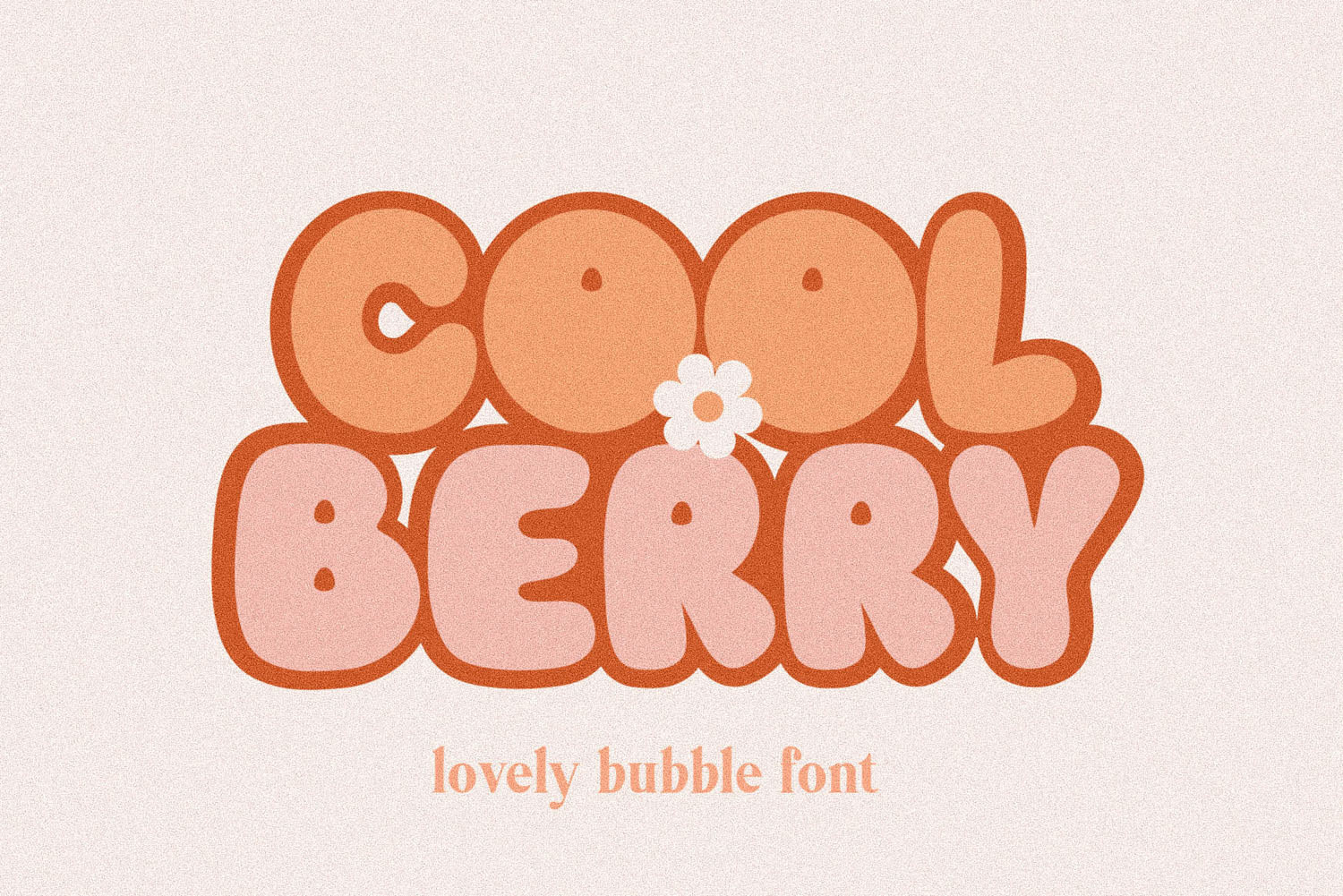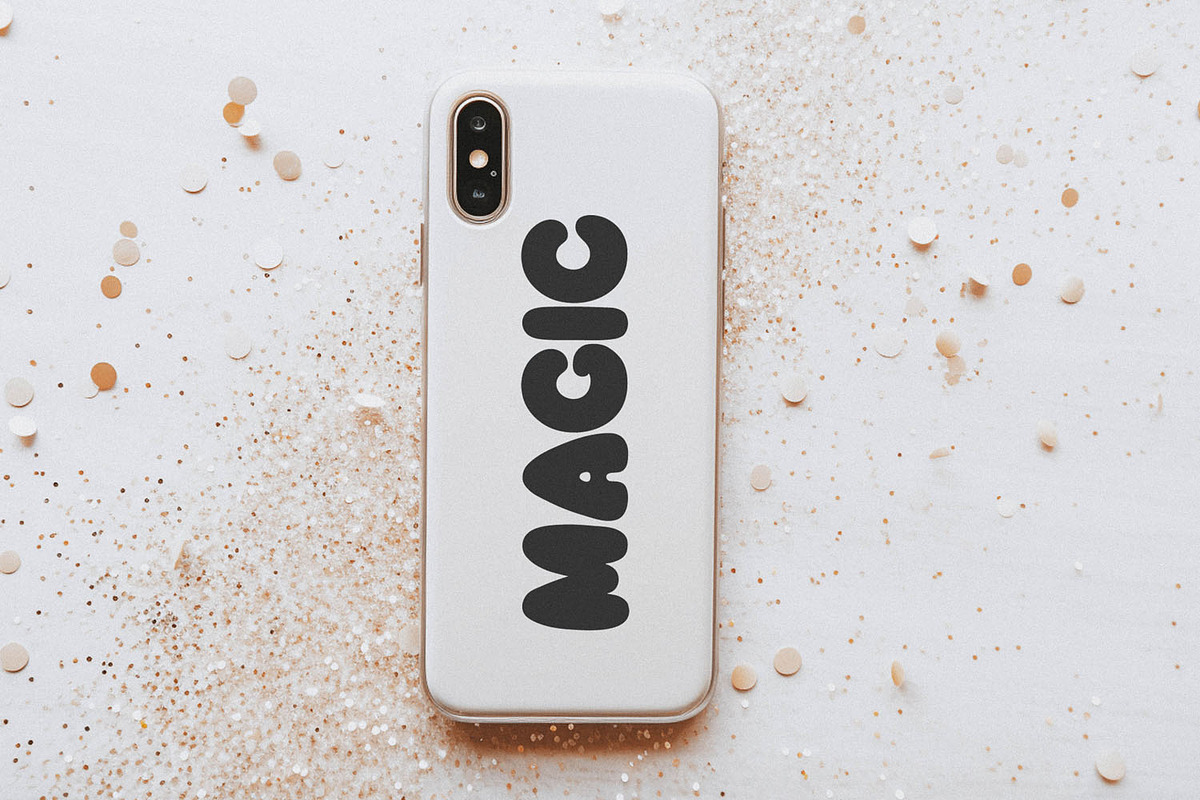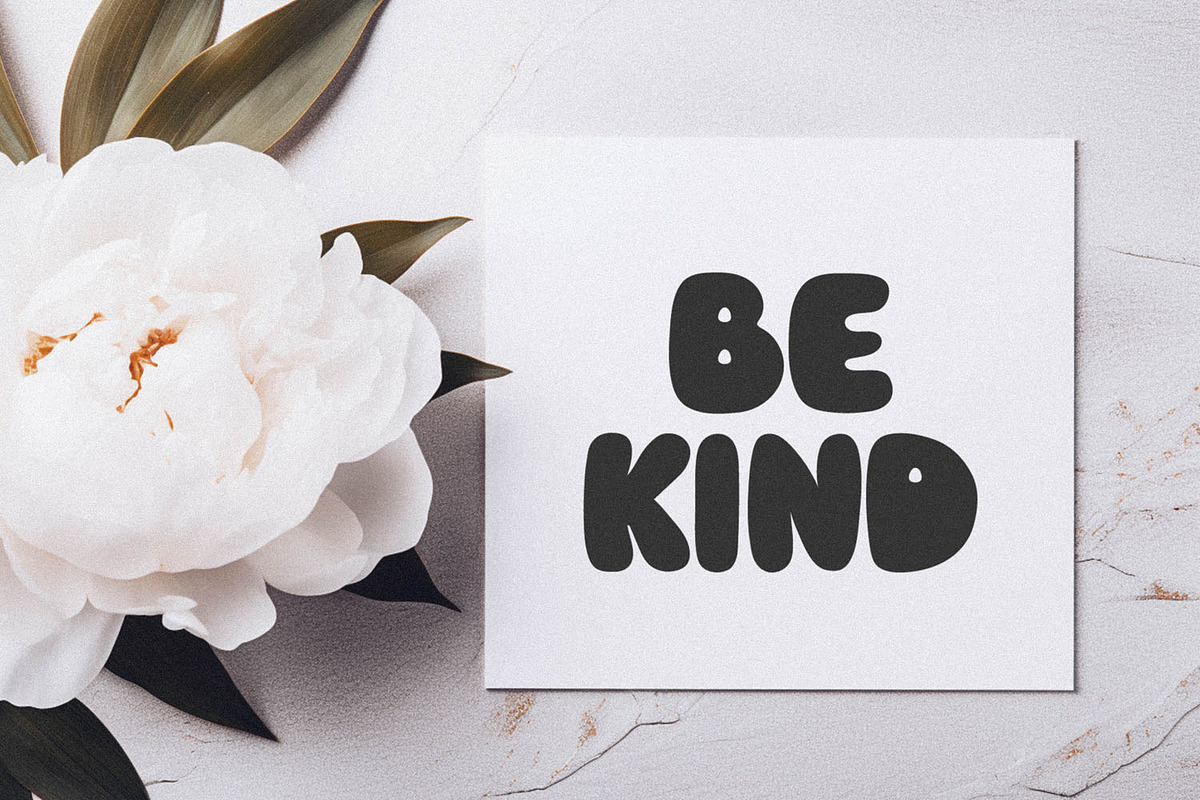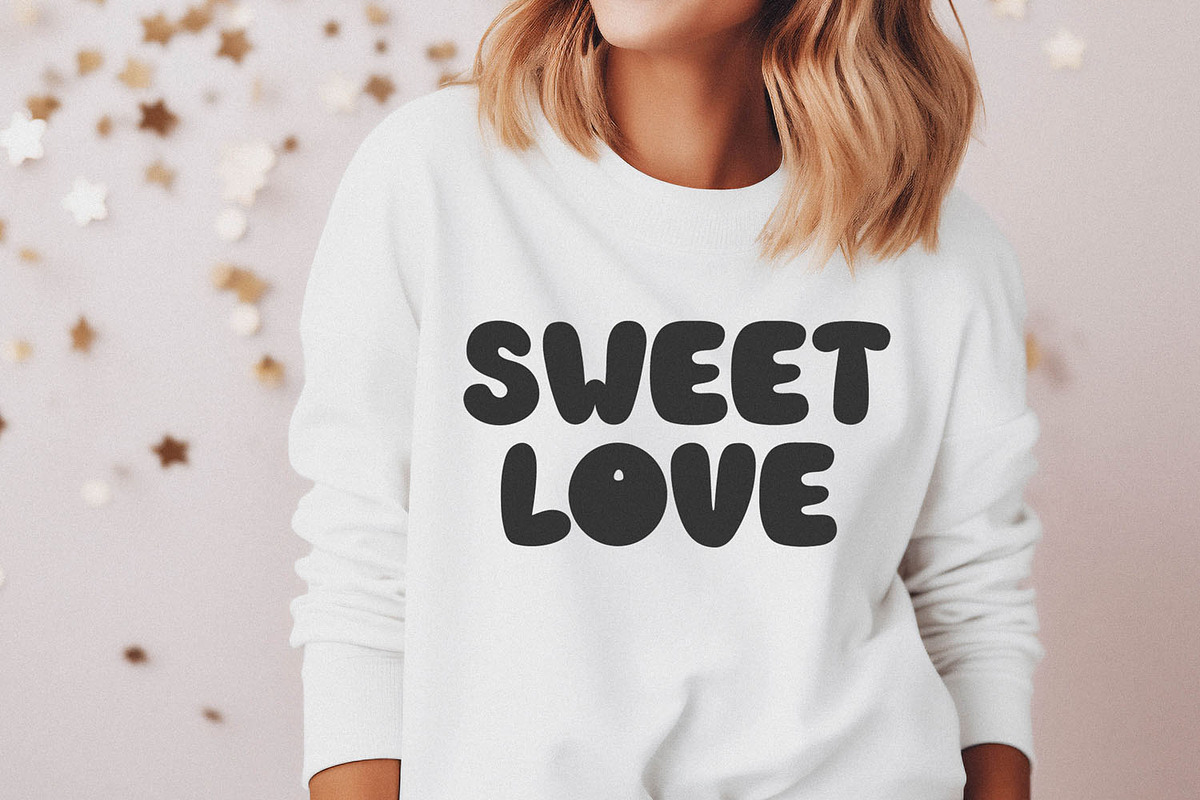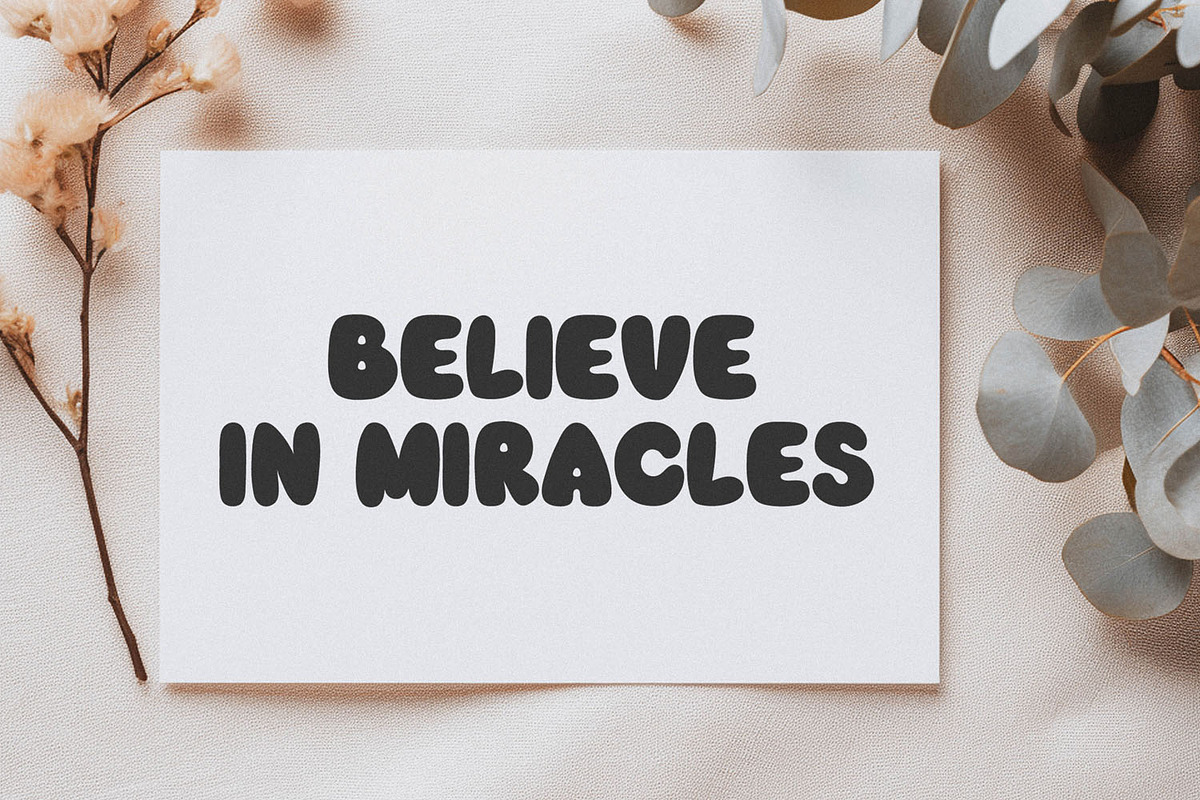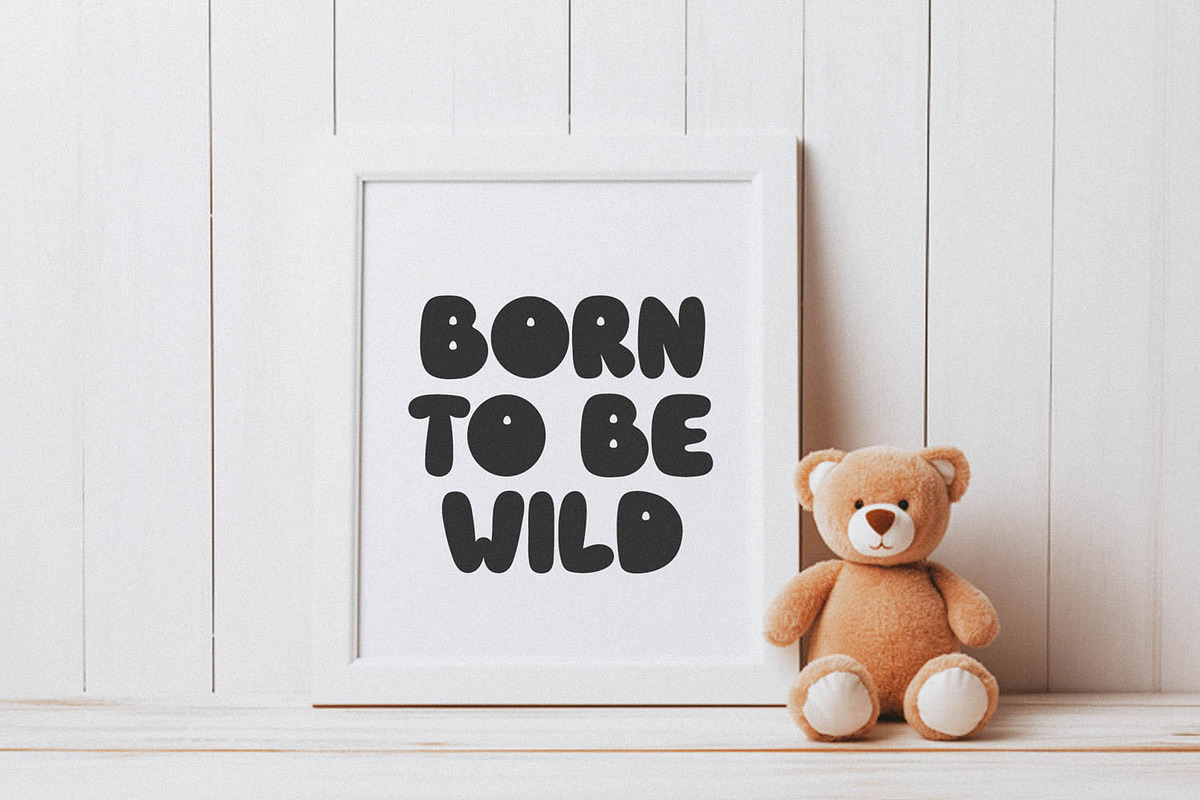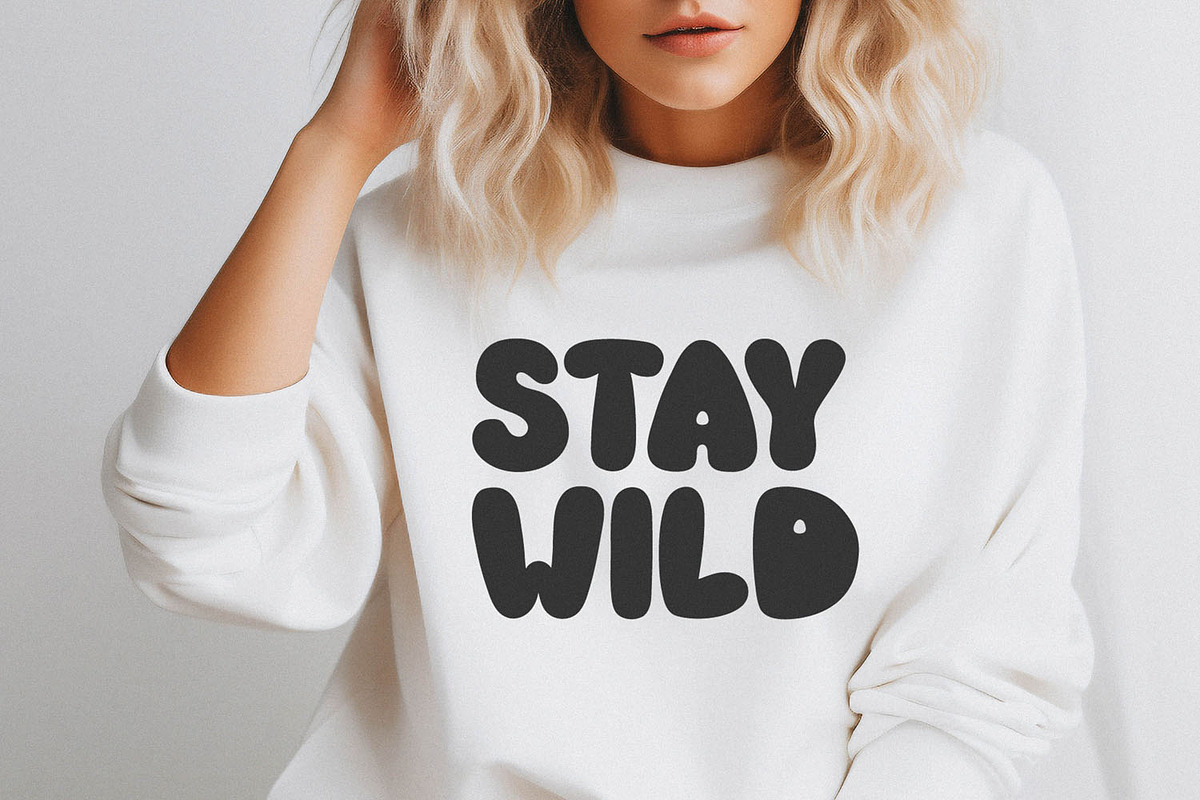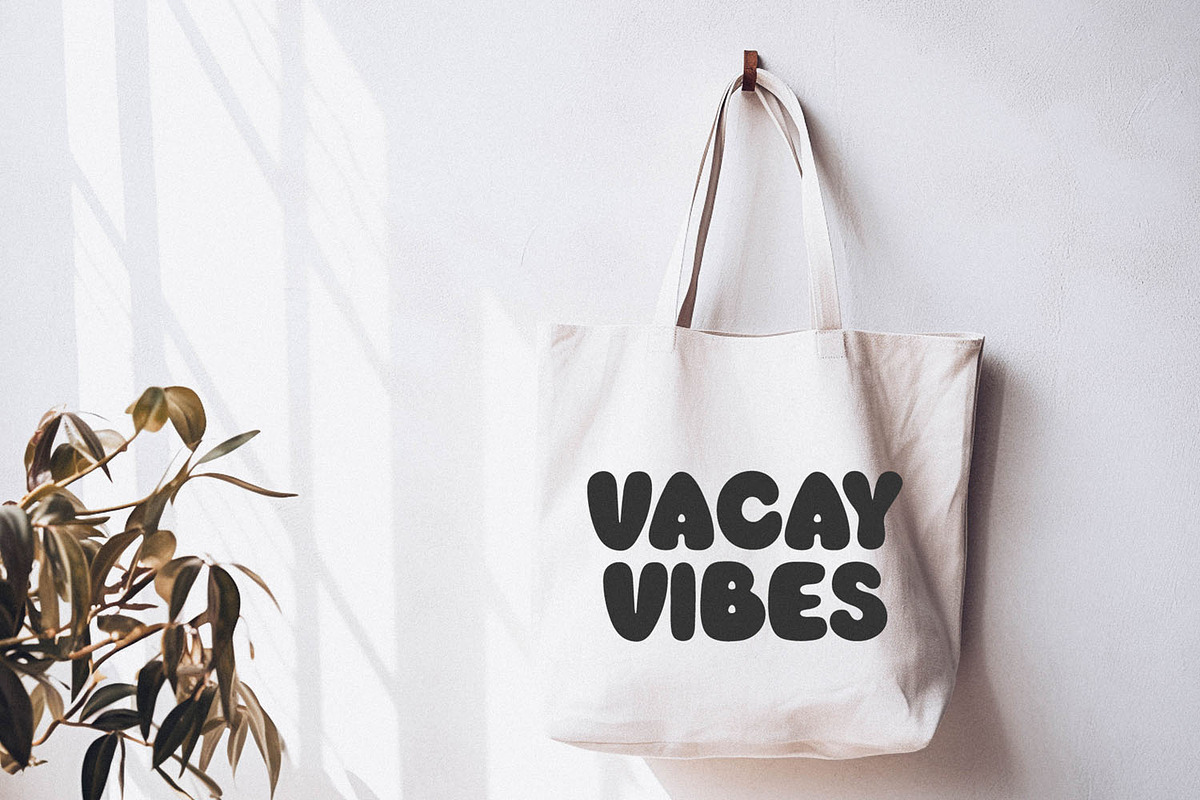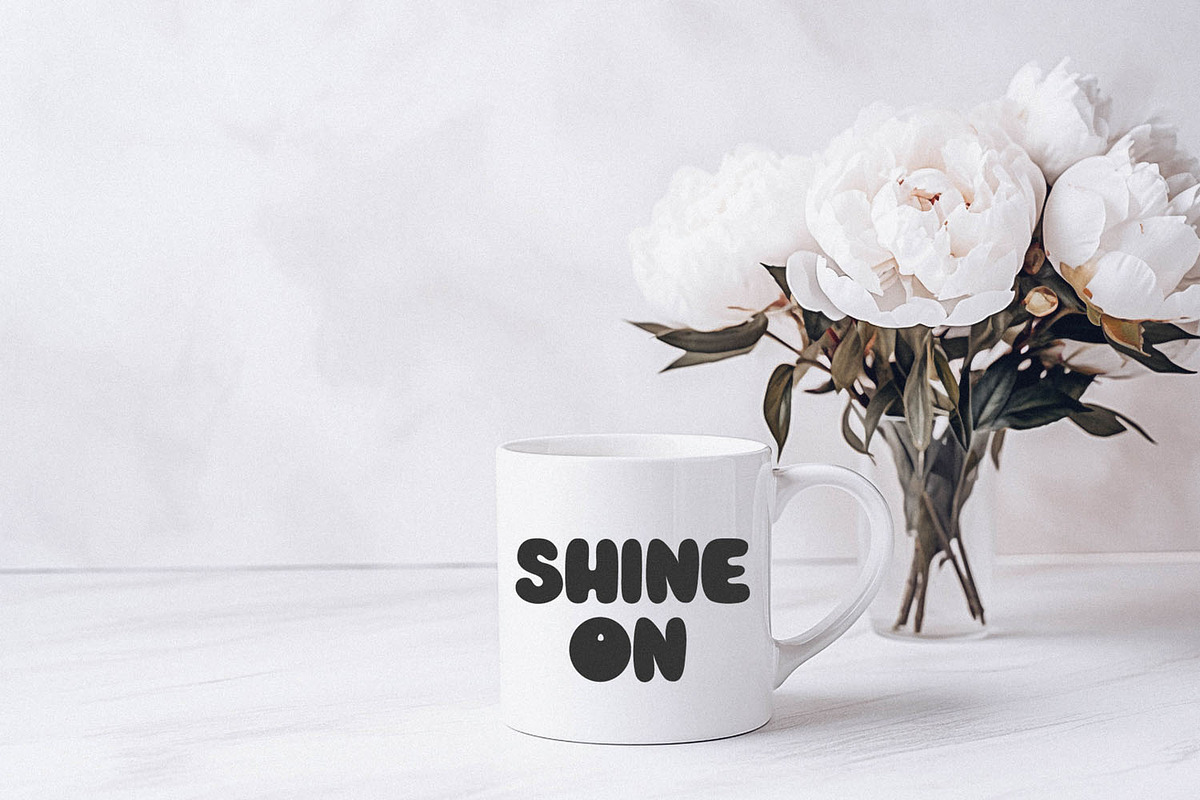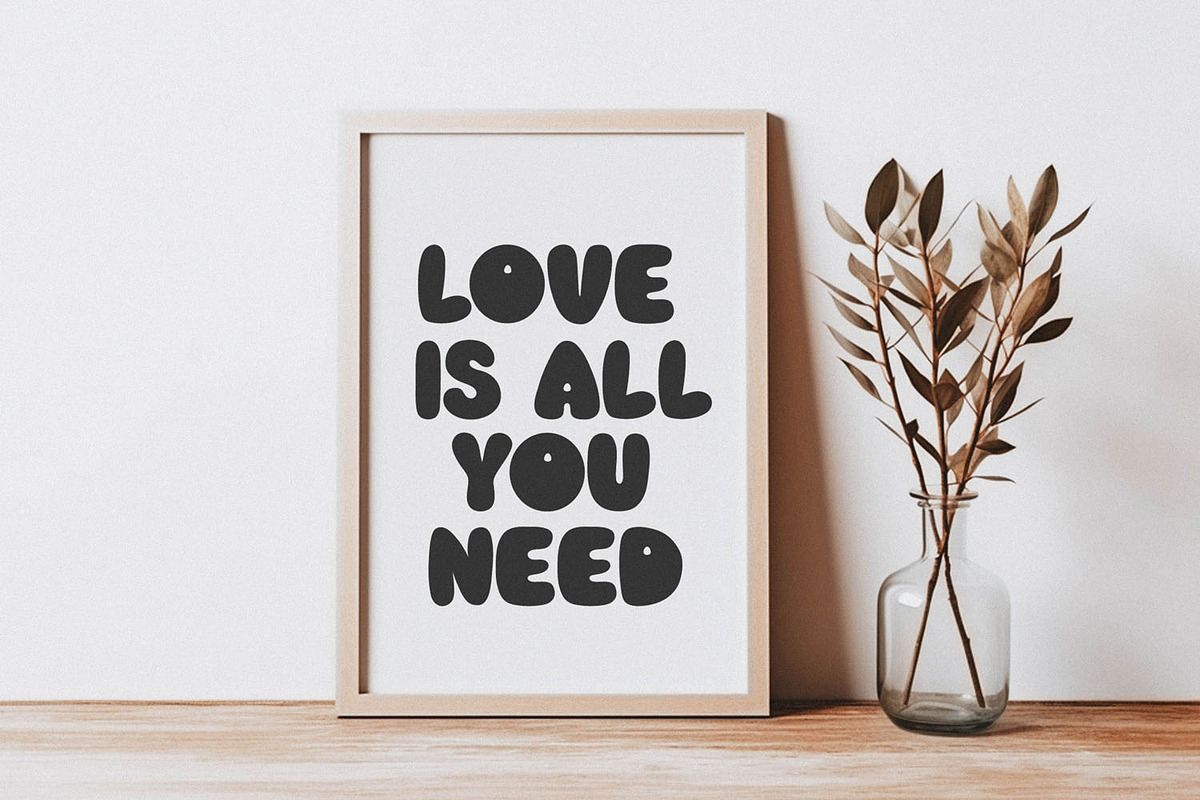
Cool Berry Lovely Bubble Font
Cool Berry Font - a lovely bubble font for crafters and designers.
Perfect to create:
DIY Decorations: Create your own decorations like banners, stickers, signs, wall posters, pillows, mugs for your home or party venue.
Craft Projects: Design craft projects such as scrapbooking, cricut projects, sublimation designs.
T-shirt Designs: Print t-shirts with cute or fun messages.
School Projects: Enhance school presentations or projects.
Social Media Graphics: Design attention-grabbing posts for your social media accounts.